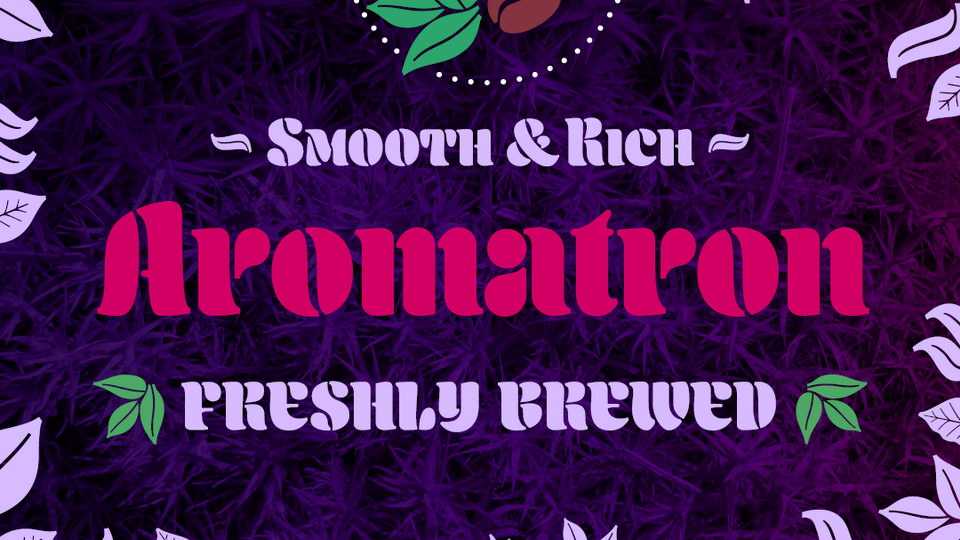
Download Aromatron font, a unique, smooth and rich display typeface with a vintage feel. Aromatron explores the stencil type genre, gracefully balancing between legibility and aesthetics.
Designer: Adam Jagosz